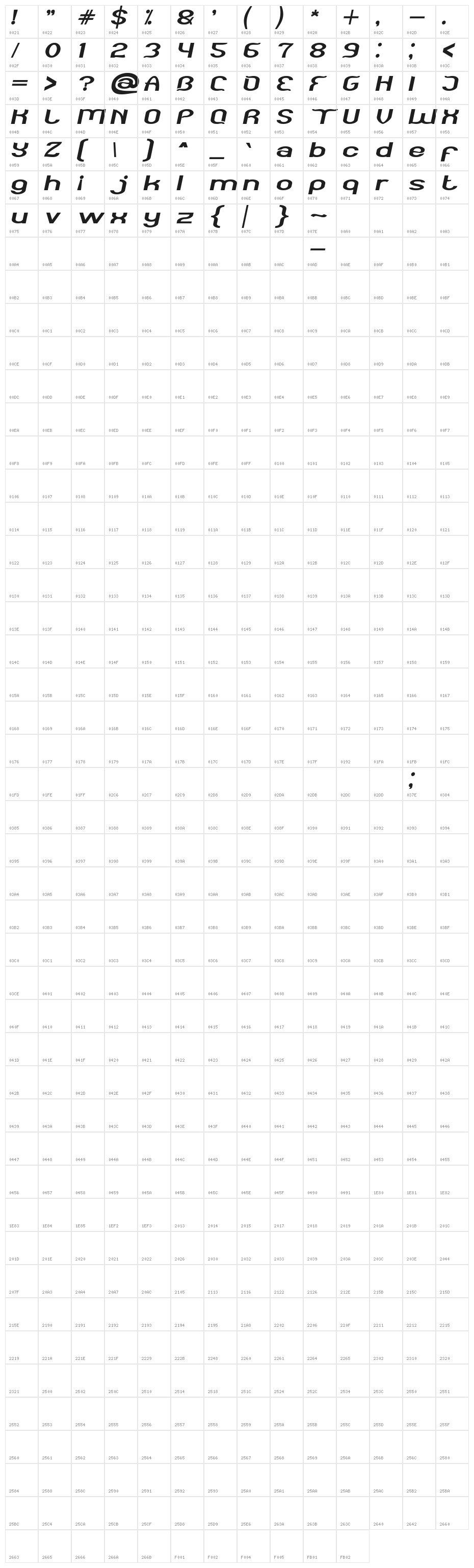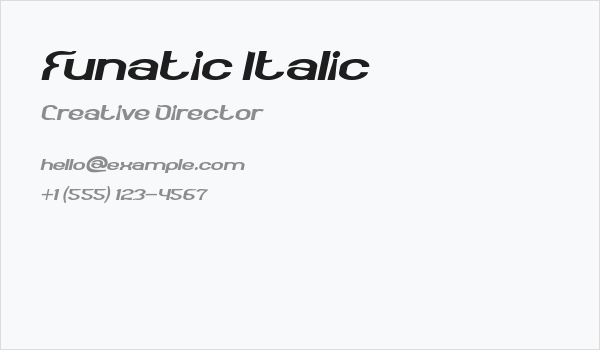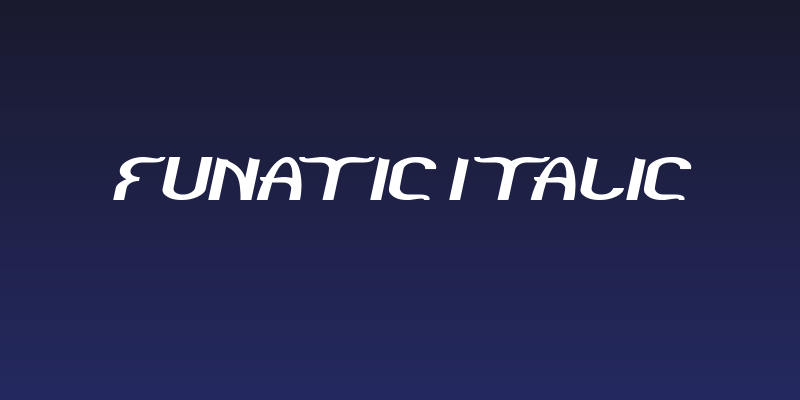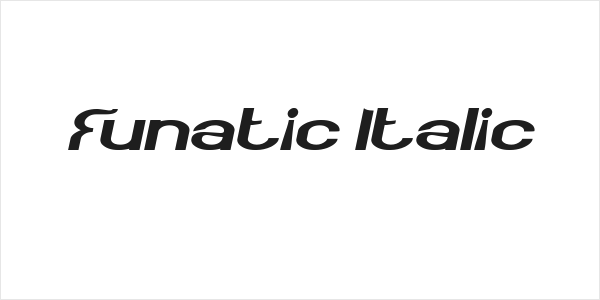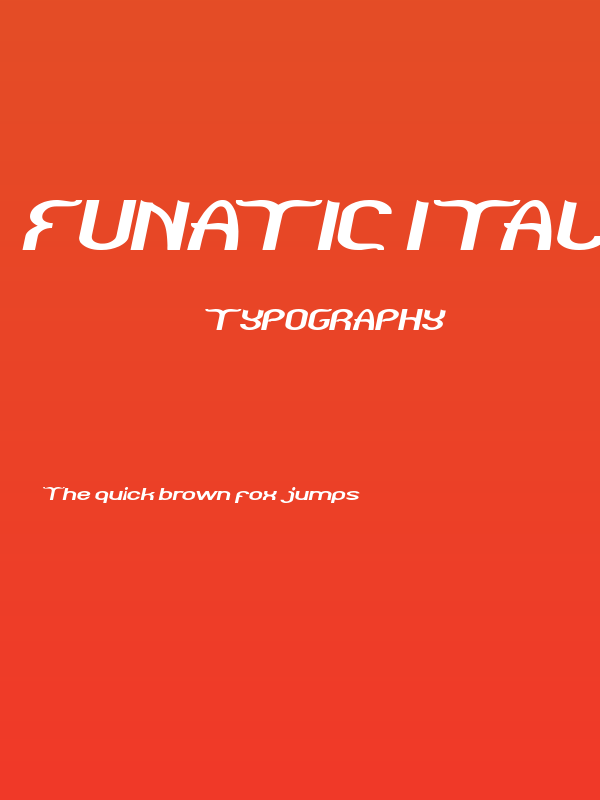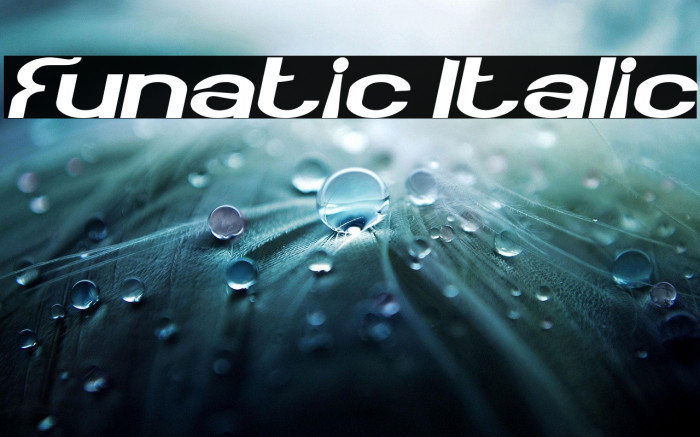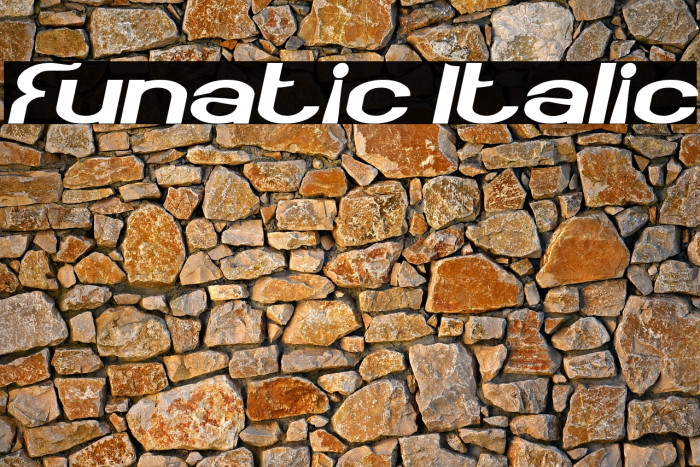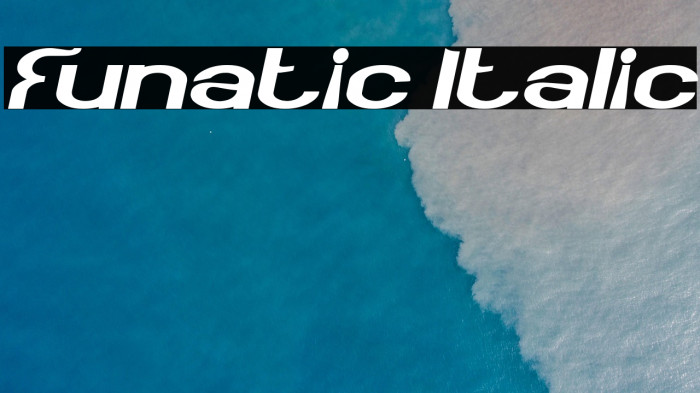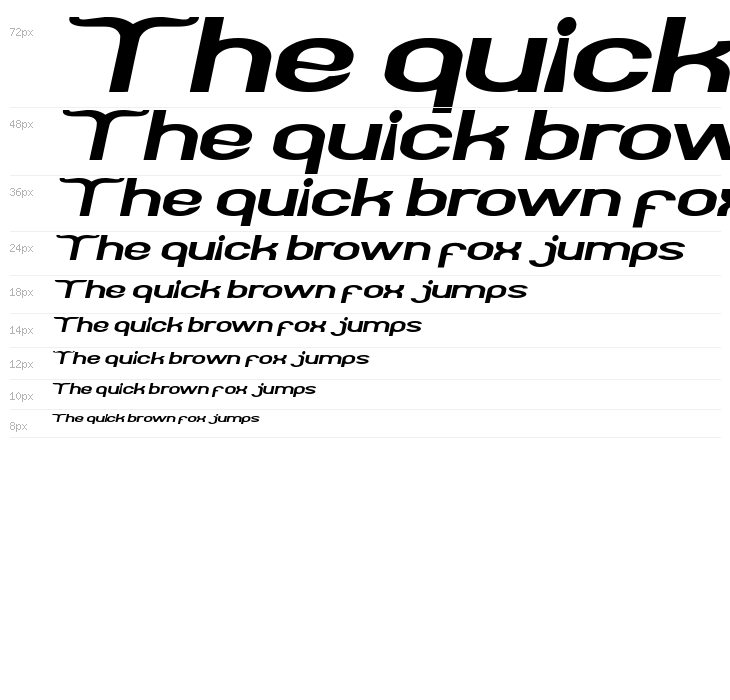
Funatic Italic Font
Funatic Italic Description
This font exhibits a dynamic and playful style with a distinct italic slant, giving it a sense of motion and energy. The characters are bold and slightly condensed, with unique curves and angles that add a modern flair. The uppercase letters are particularly striking, with exaggerated strokes and a futuristic feel. The lowercase letters maintain the same energetic style, ensuring consistency across text. Numbers and special characters are designed to match the overall aesthetic, making them suitable for a variety of creative applications.
| Proposed Projects | Ideal for branding, advertising, posters, and any project requiring a bold, energetic typeface. |